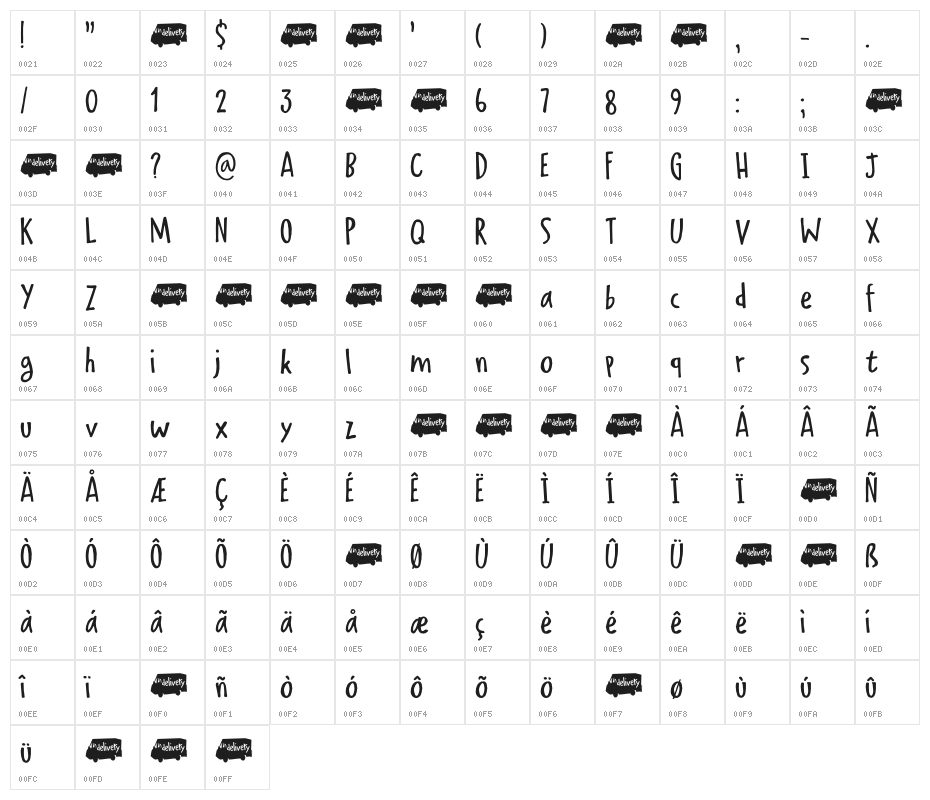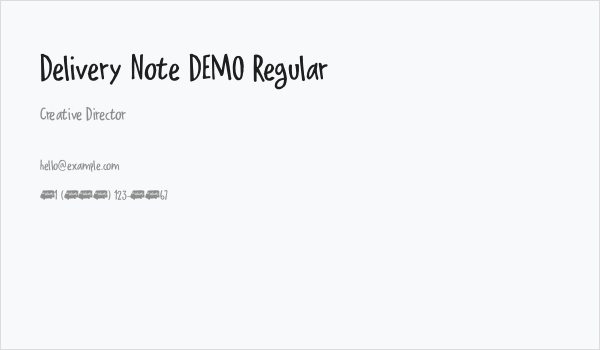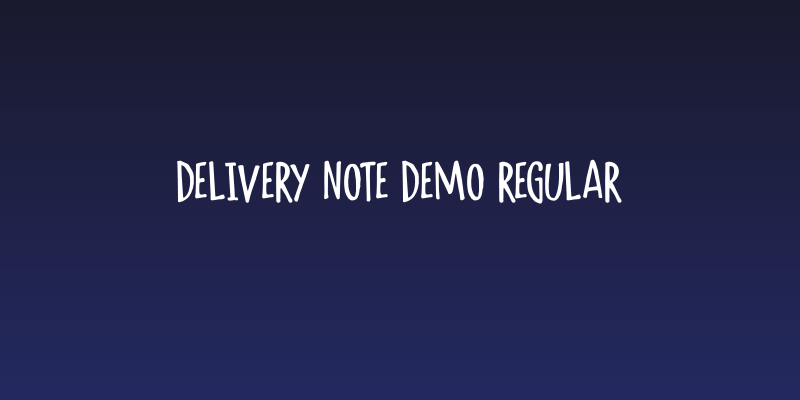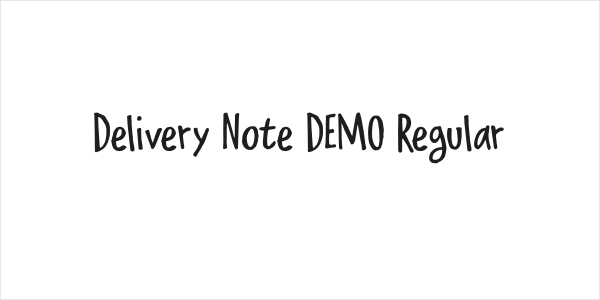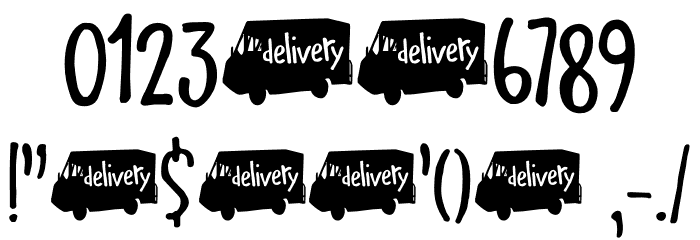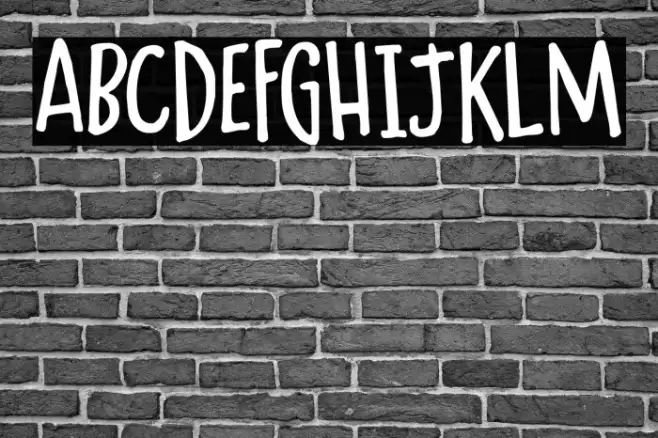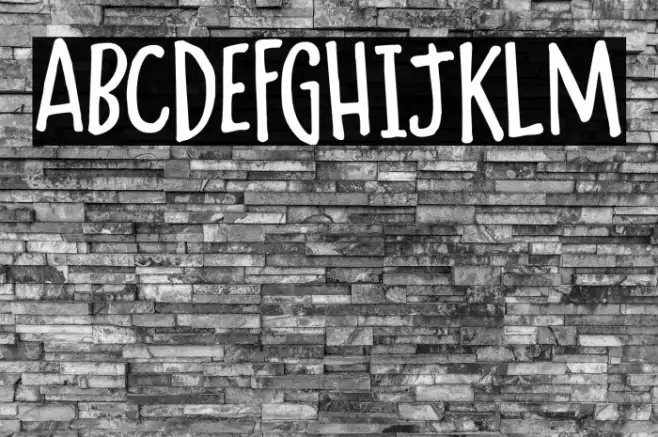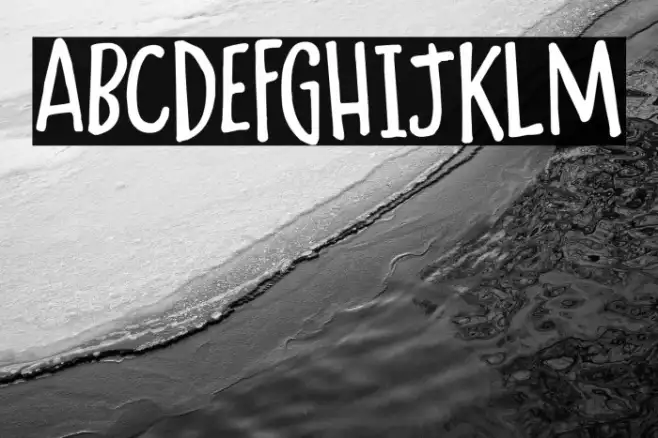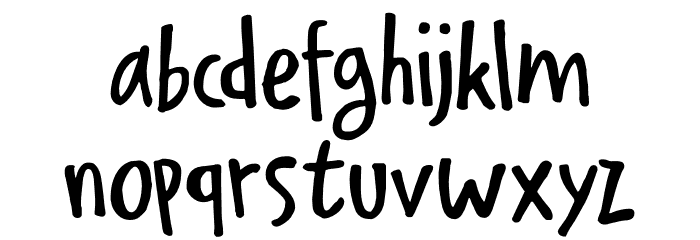
Delivery Note DEMO Regular Font
Delivery Note DEMO Regular Description
This font features a playful and informal handwritten style, characterized by its irregular strokes and casual appearance. The uppercase and lowercase letters maintain a consistent flow, with slightly exaggerated curves and loops that add a whimsical touch. The numbers are bold and clear, ensuring readability. Special characters are creatively integrated, with some symbols featuring a unique delivery truck motif, adding a thematic element to the font. This design is ideal for projects that require a friendly and approachable aesthetic.
| Proposed Projects | Perfect for children's books, playful branding, event invitations, and casual social media graphics. |